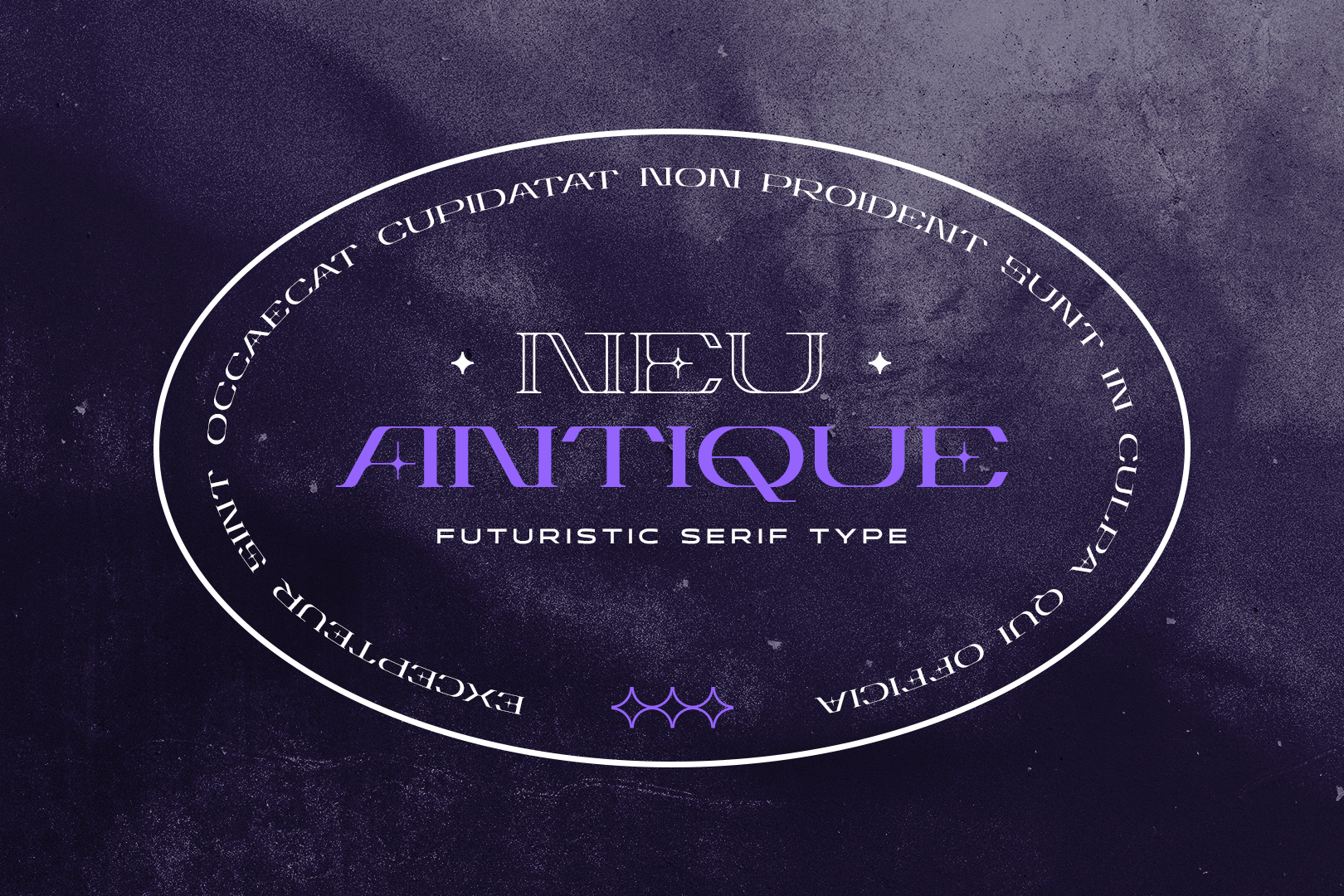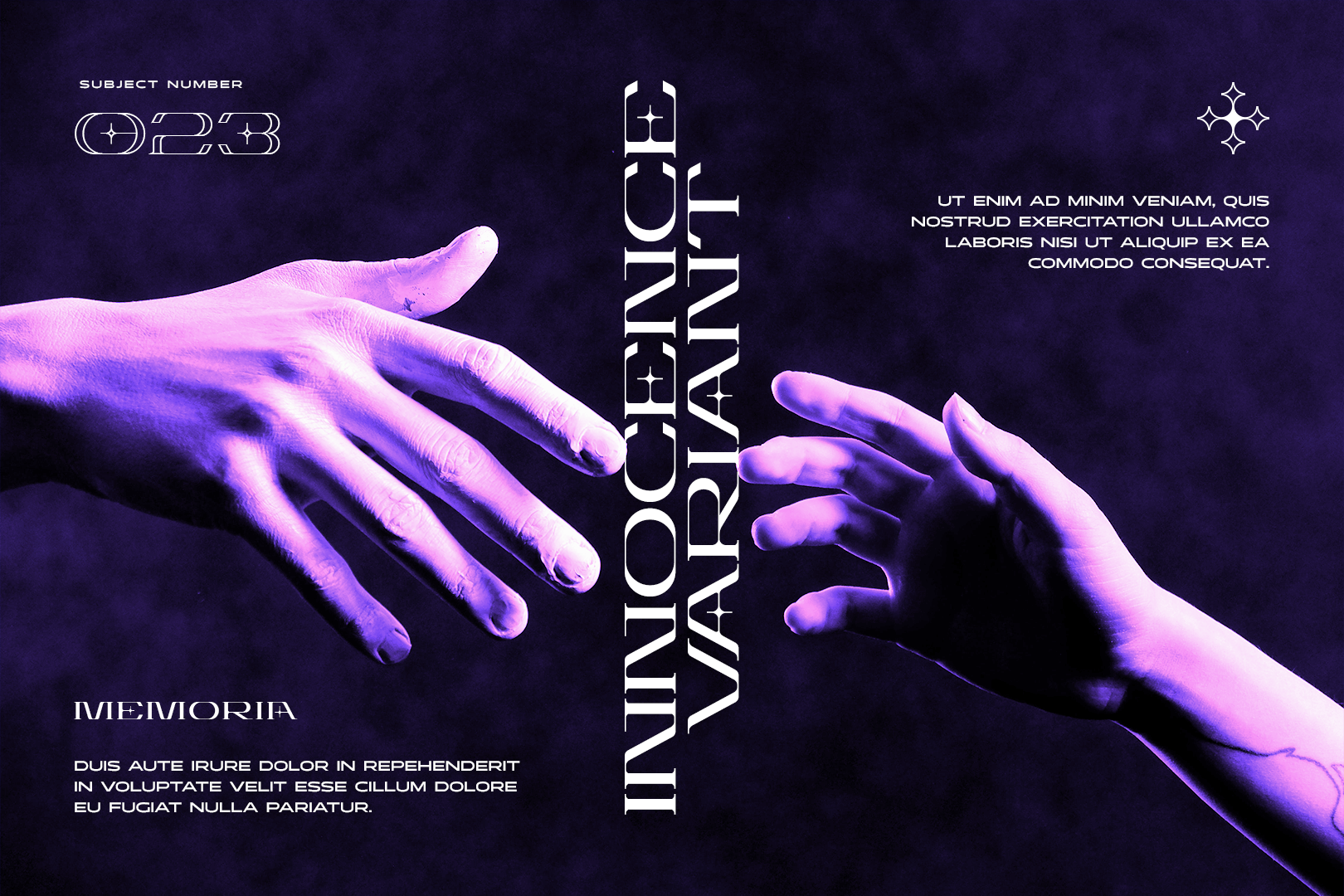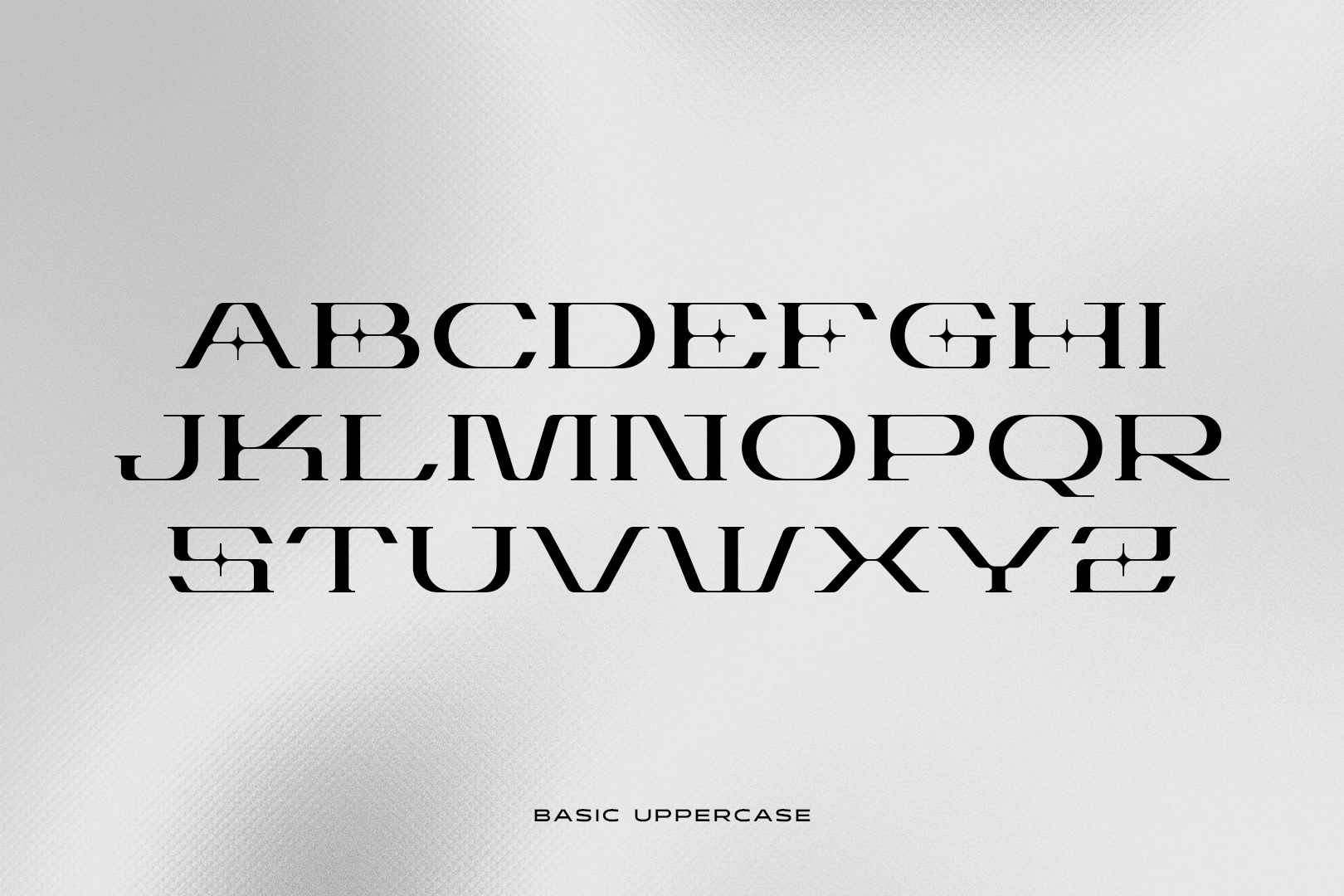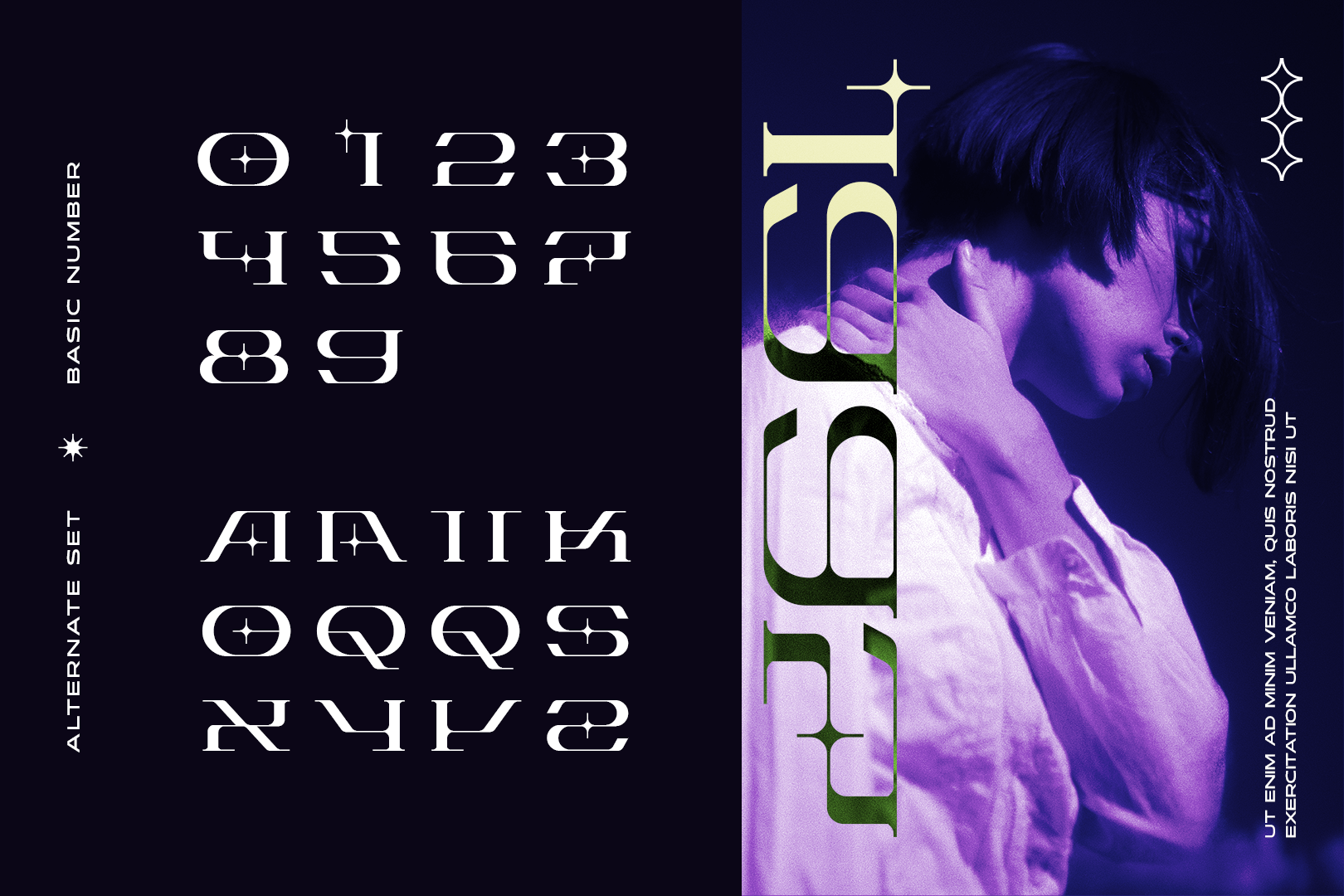
Estoria Futuristic Font
Estoria Futuristic Display Font
As an album art fan, I see now a lot of designs that are inspired by futuristic and modern album art styles, such as posters, magazines, typography, social media posts. Here I try to make a font with a futuristic but classic style, using serif letters as the basis. If you like album art designs like I do, you can try using this experimental font in your designs.
I made this font in all capital letters so that you can make it as main text or headline in your layout design. This font is also given an outline version so you can use lighter shades. For purposes like album cover designs, magazines, social media, logos, web designs, t-shirt designs, this font will work great.
Alternative characters are available for those of you who want to create different text, so you have a variety of looks in your design. Add it to your font collection and start creating something different and impressive.